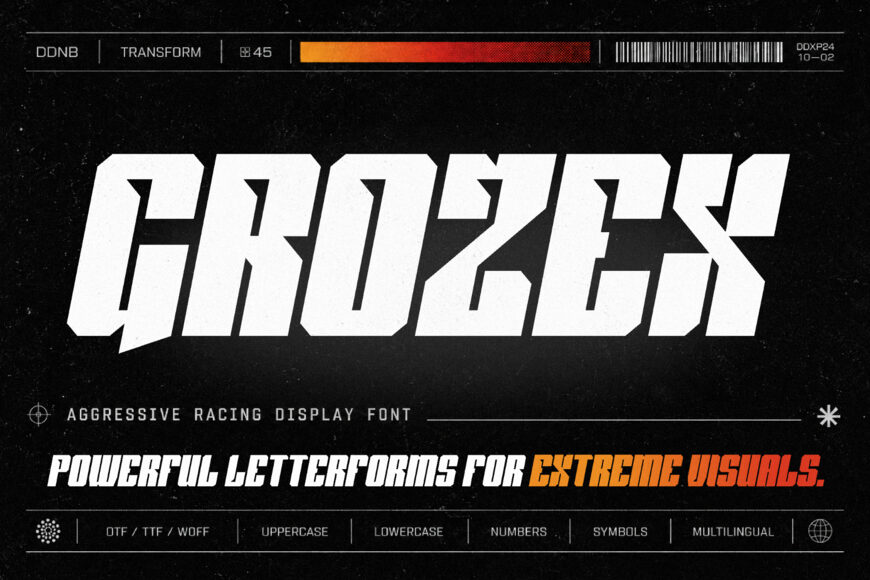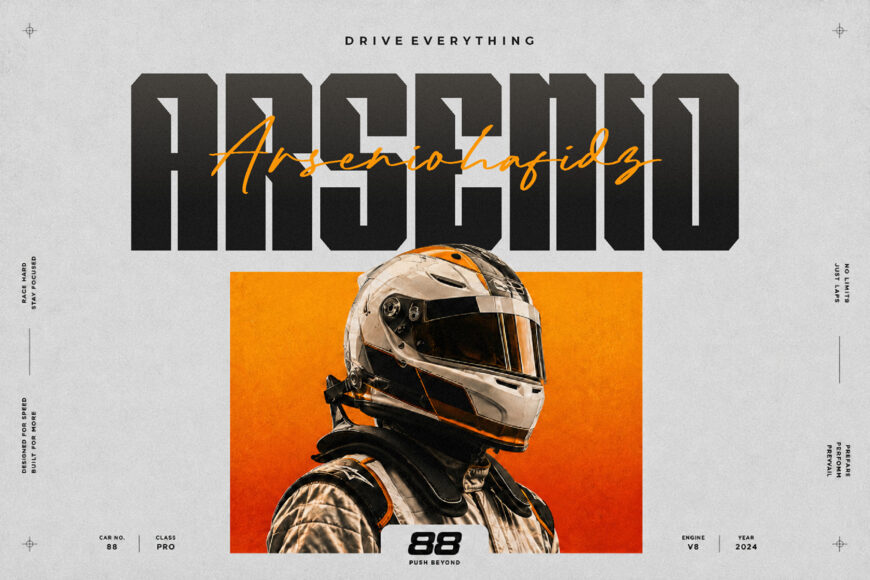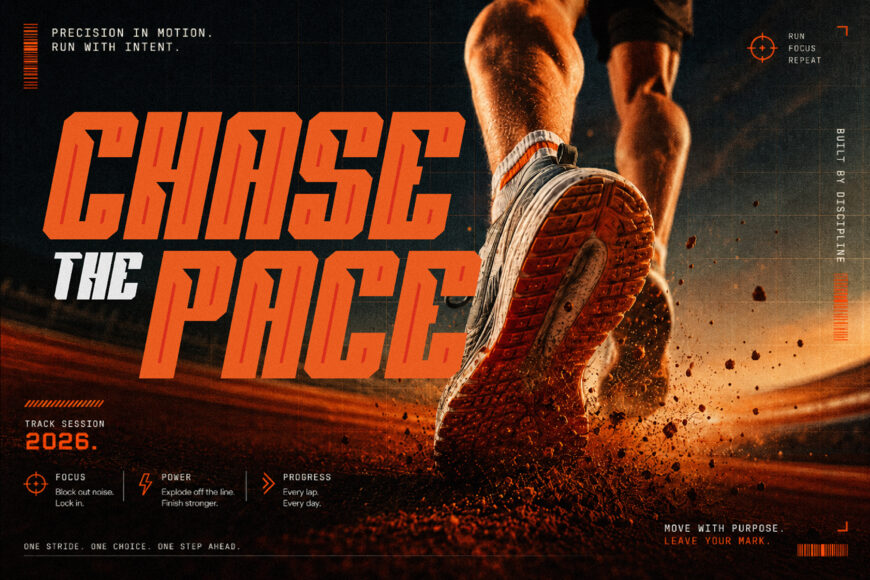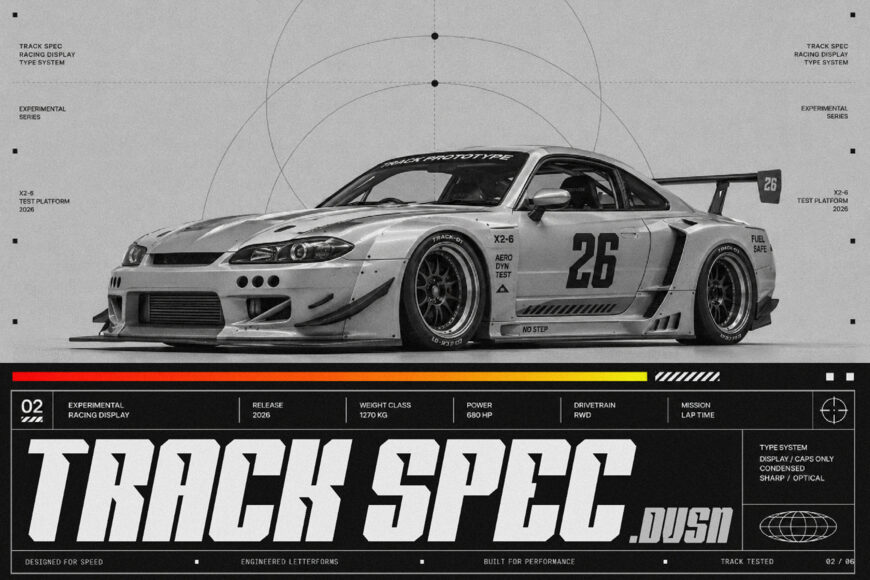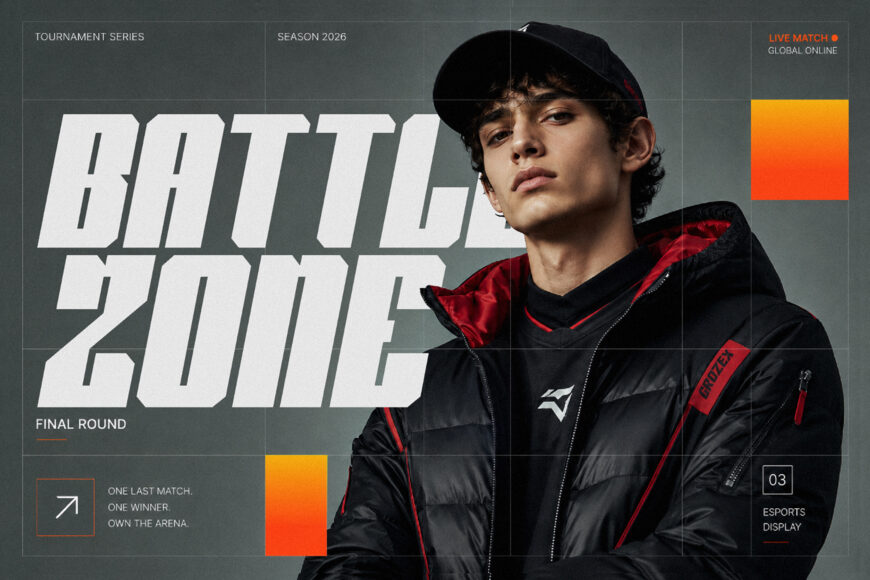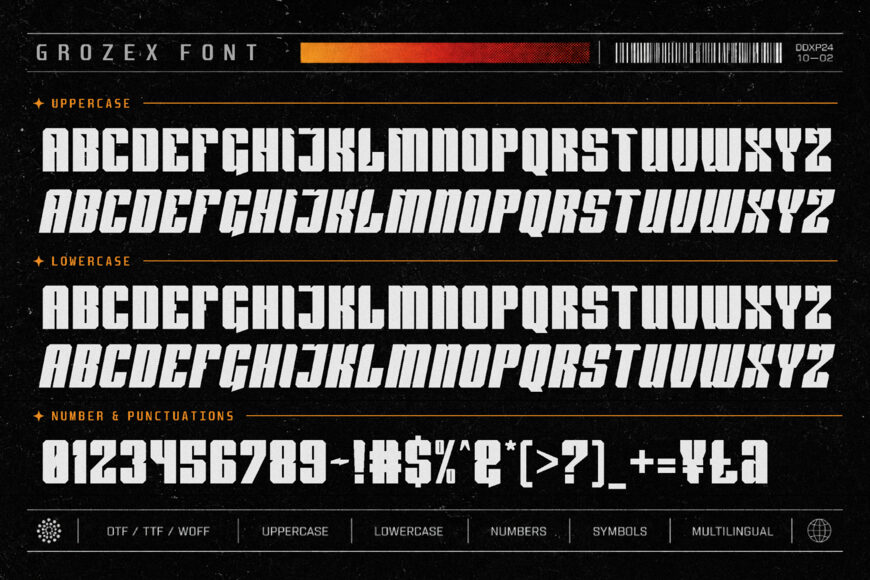
Grozex is an aggressive racing font created for designs that need motion, pressure, and visual impact from the first glance. Built with a bold racing personality, Grozex gives your typography a fast, competitive, and energetic look that feels right at home in automotive branding, motorsport graphics, esports visuals, sportswear, posters, packaging, and high-impact digital content.
This font is made for designers who want their words to feel active, not static. Whether you are building a racing team identity, a car club logo, a bold apparel graphic, or a punchy social media campaign, Grozex helps your message look sharper, stronger, and more performance-focused.